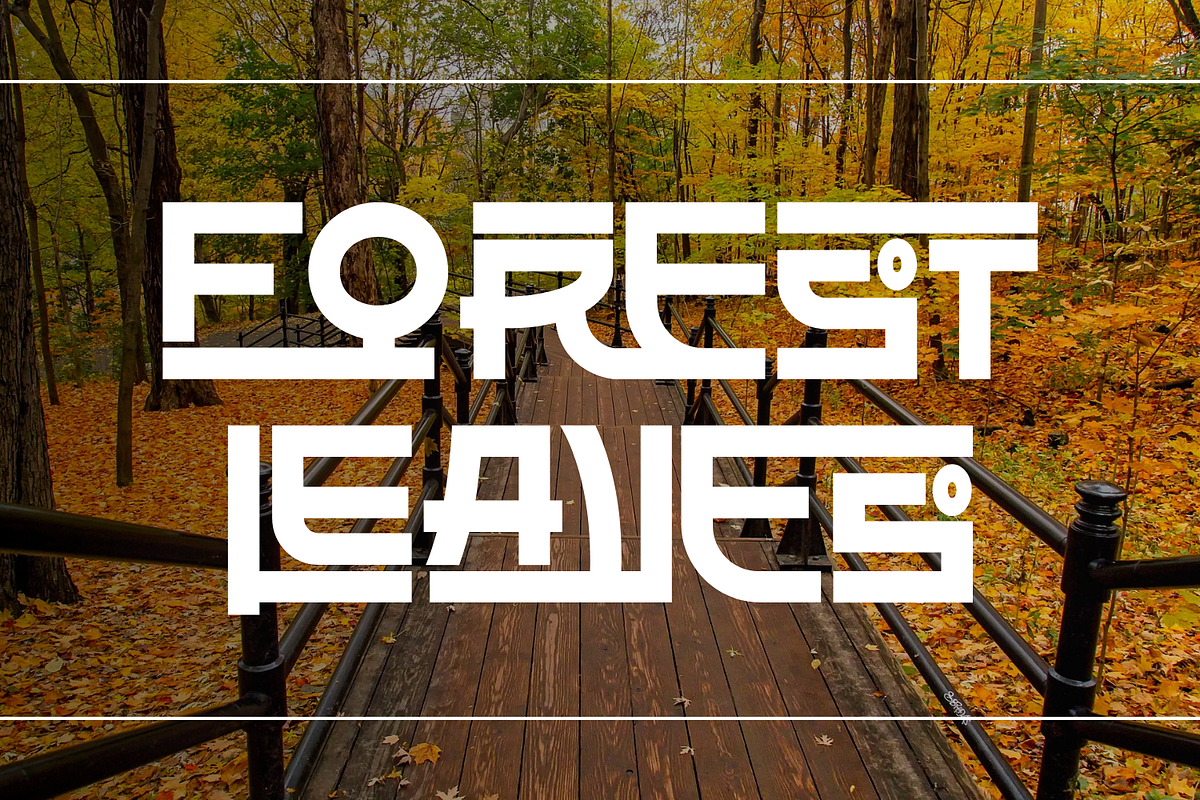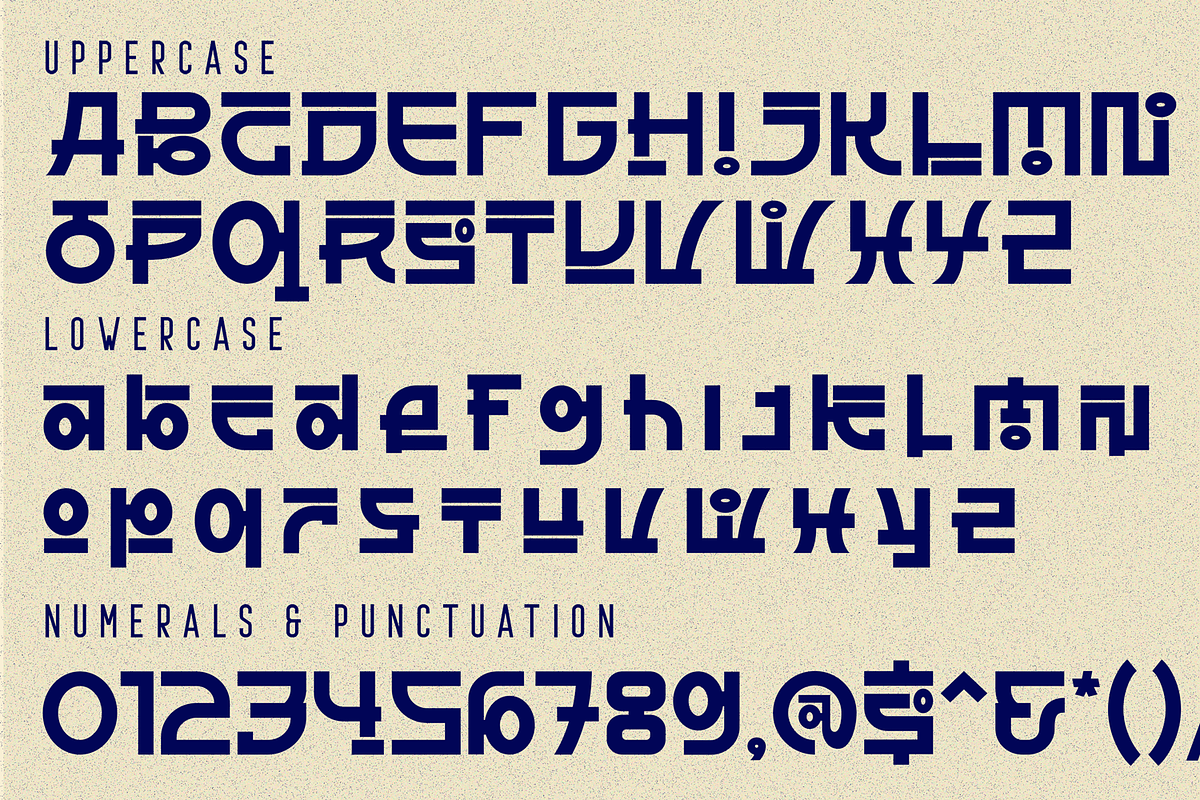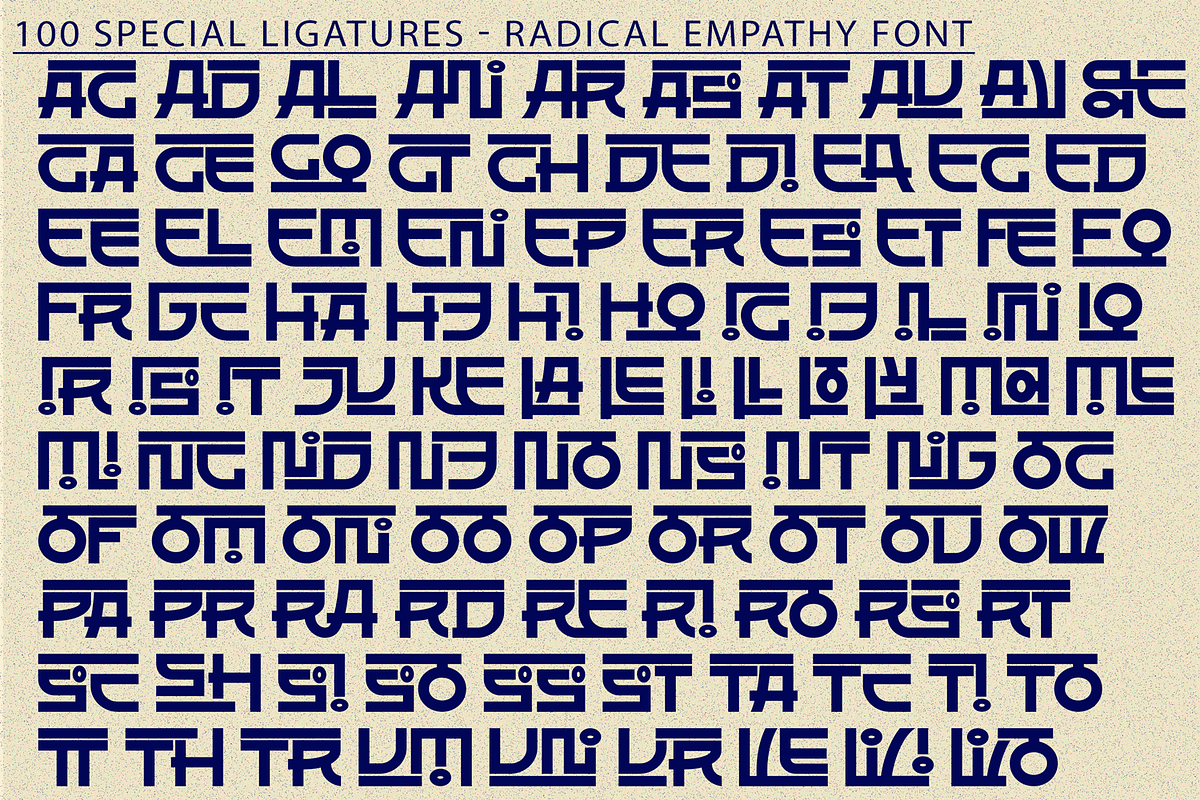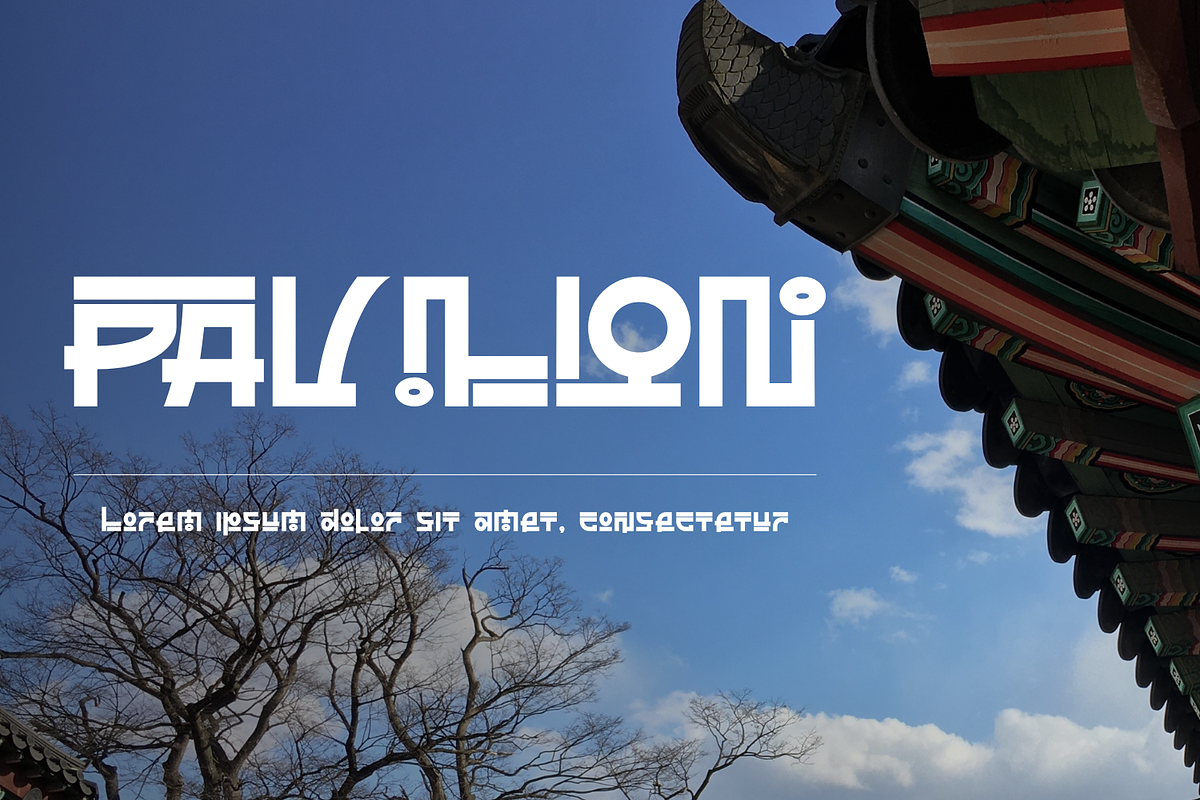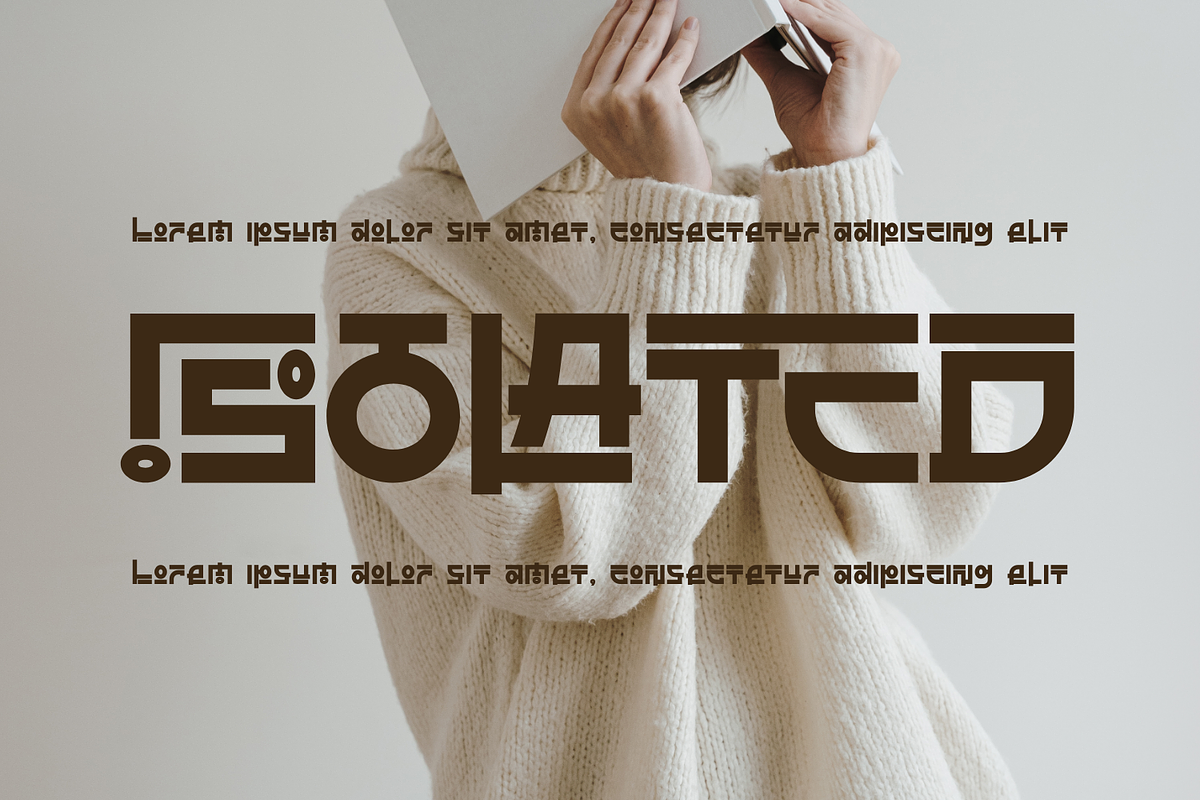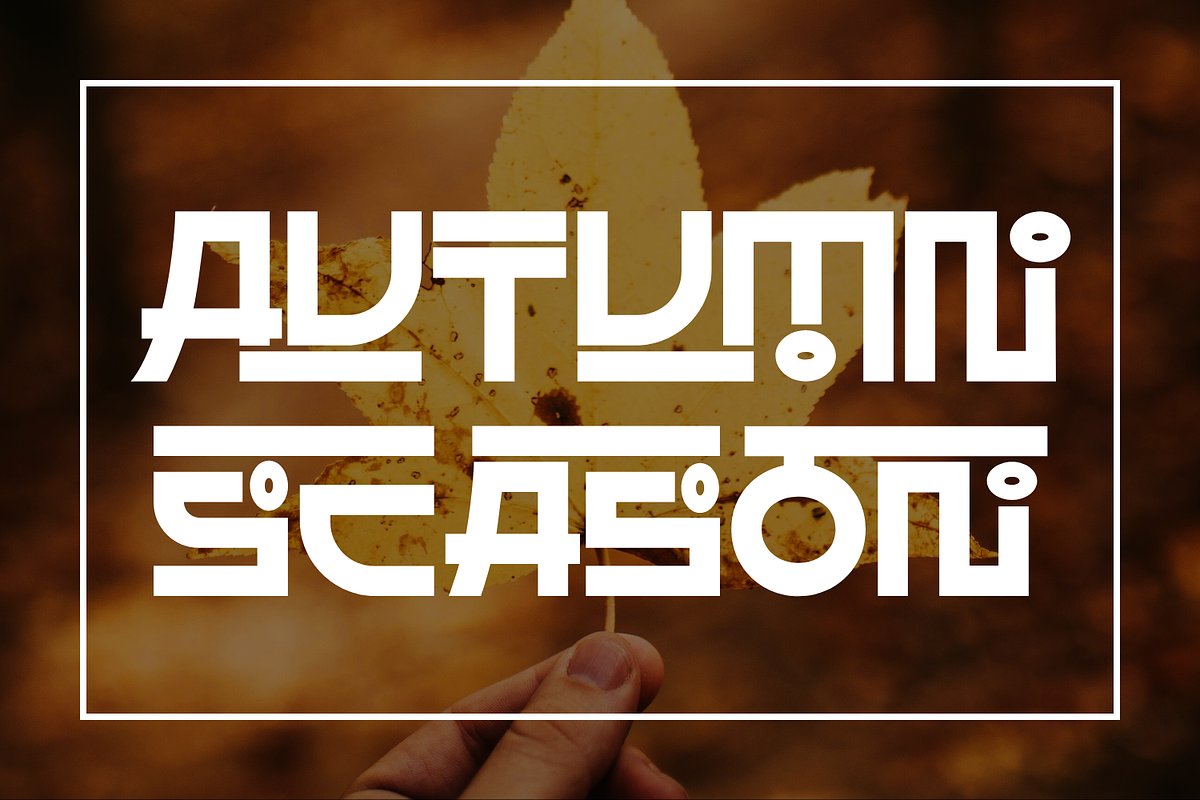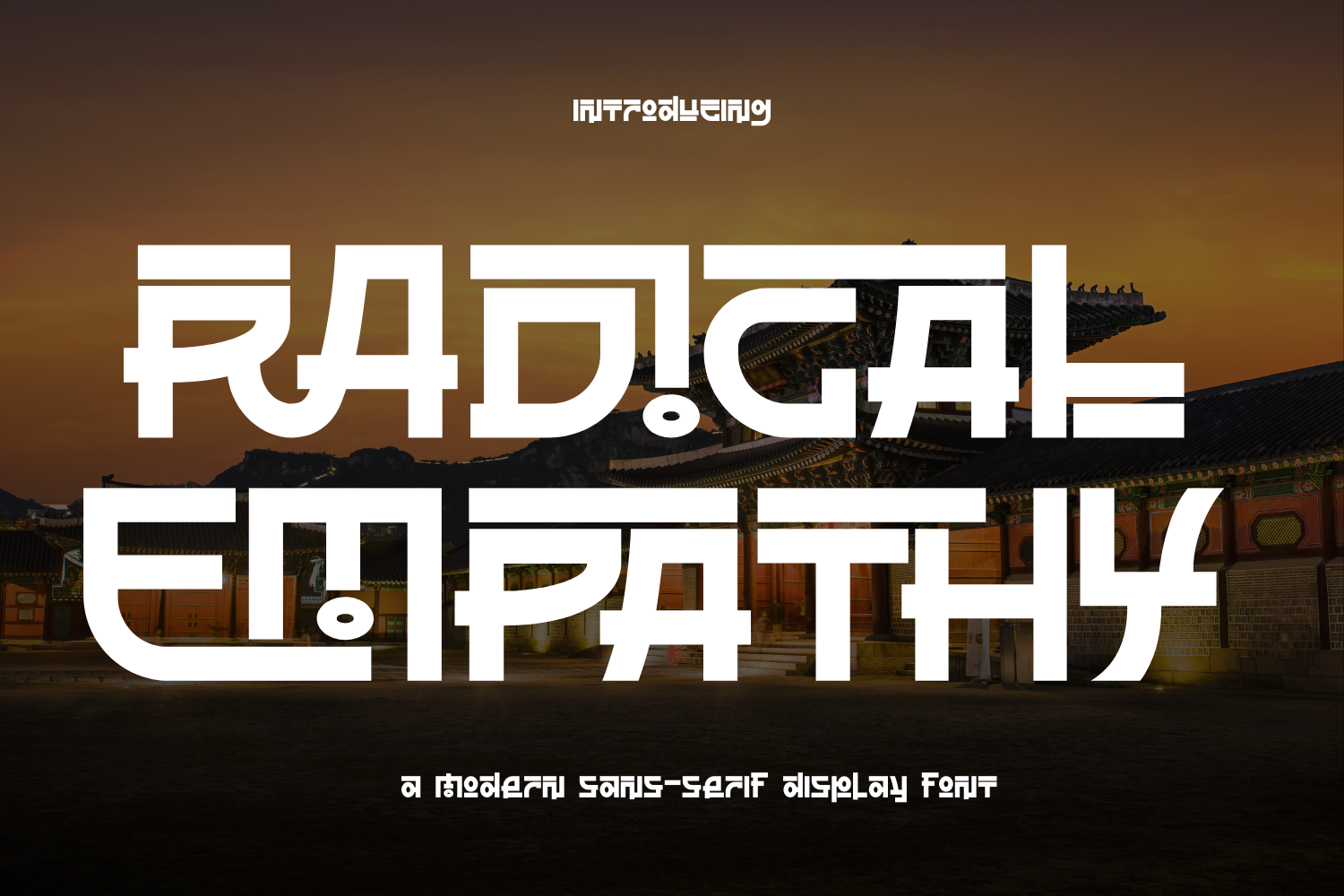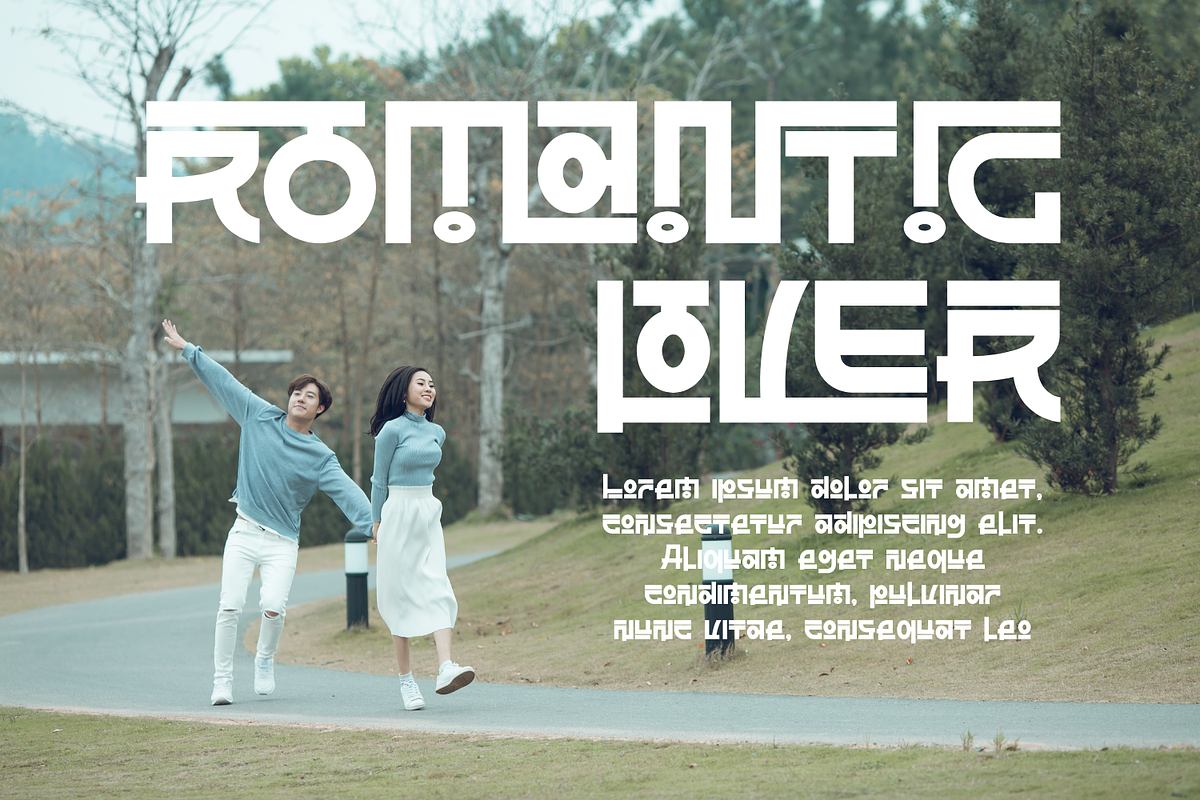
RADICAL EMPATHY FONT
RADICAL EMPATHY FONT – Bold Futuristic Geometric Display Font, a bold futuristic geometric display font inspired by modern architecture, sci-fi aesthetics, and Asian industrial typography. The font features strong blocky letterforms, sharp angles, squared terminals, and distinctive cut-out details that create a powerful, mechanical, and highly structured appearance. Its solid construction and modular design deliver excellent visual impact, making the font stand out instantly in headlines and large-scale compositions. RADICAL EMPATHY is designed for high readability while maintaining a striking futuristic character, perfect for posters, branding, technology projects, game titles, logos, packaging, apparel, and modern editorial designs.
🔤Features:
- Uppercase Letters
- Around 100 Special Ligatures & Alternates
- Accented Characters for multilingual support
🔤About 100 ligatures combined with Stylistic Alternates Font:
AC AD AL AN AR AS AT AU AV BE CA CE CH CO CT DE DI EA EC ED EE EL EM EN EP ER ES ET FE FO FR GE HA HE HI HO IE IC IL IN IO IR IS IT JU KE LA LE LI LL LO LY MA ME MI NC ND NE NG NO NT NS OC OF OM ON OO OP OR OT OU OW PA PR RA RD RE RI RO RS RT SE SH SI SO SS ST TA TE TH TI TO TR TT UM UN UR VE WI WO